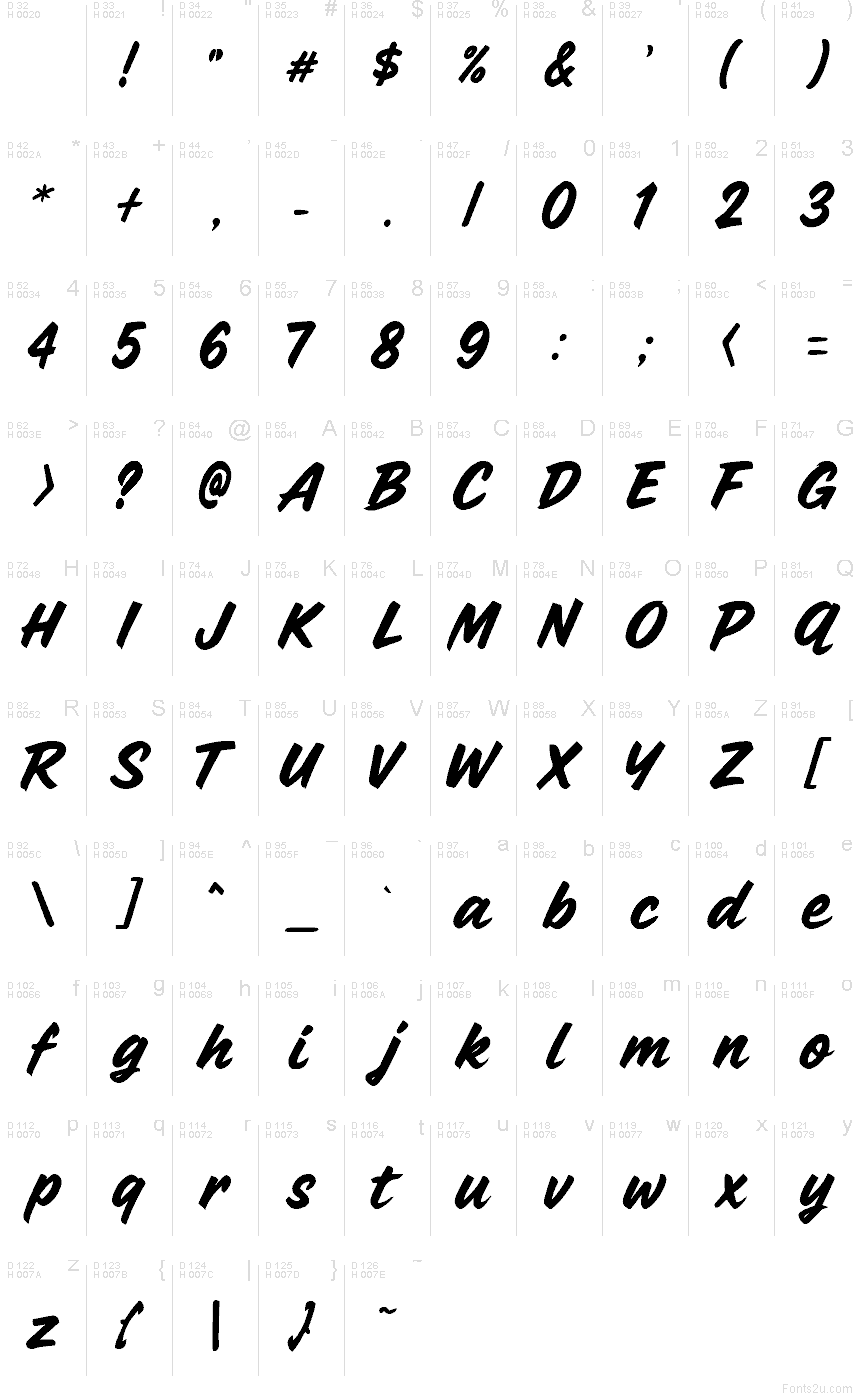
Flashback Records
Flashback Records font by BlackFridayFont FMF is a free brush script font that feels straight off a vintage record sleeve. Its smooth, inky strokes lean forward with a subtle slant, giving every word a sense of motion, like a band name racing across a tour poster. The letters connect with an easy rhythm and generous curves, creating a bold, hand-painted look that’s both nostalgic and sharply readable at large sizes.
Using Flashback Records, you can dial up the retro energy on album covers, gig posters, music logos, bar or club signage, event flyers, and social media promos. This free font shines when you let it take the spotlight in headlines, then pair it with a clean sans serif in smaller text to keep things balanced. It’s especially strong on textured backgrounds, where those thick, glossy strokes feel like fresh ink on cardboard sleeves.